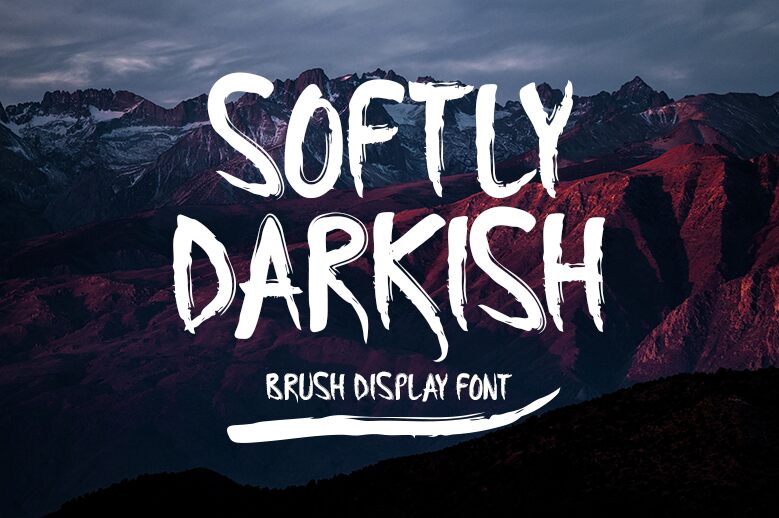
Softly Darkish font family by Md Shohail Bhuian is a free brush font. Its rough and expressive style offers a dynamic and artistic flair to the design it’s used in. It portrays a modern, energetic appeal with its bold, impactful, yet rather casual look. The visual effect it creates is further enhanced by the font’s crafting style that carries a contemporary tangent.
Incorporate this inspiring typeface in music albums, posters, invitation cards, book covers, movie titles, presentations, banners, brochures, playful websites, catchy social media posts, videos, or create logos with it.